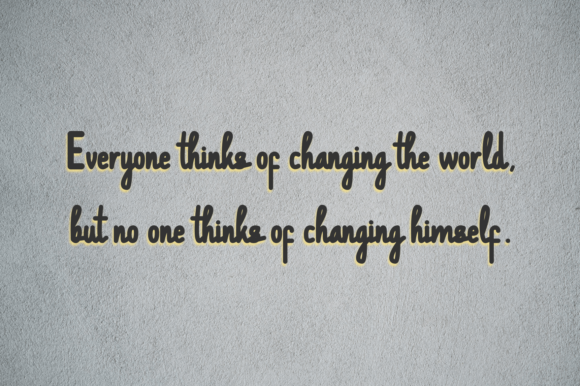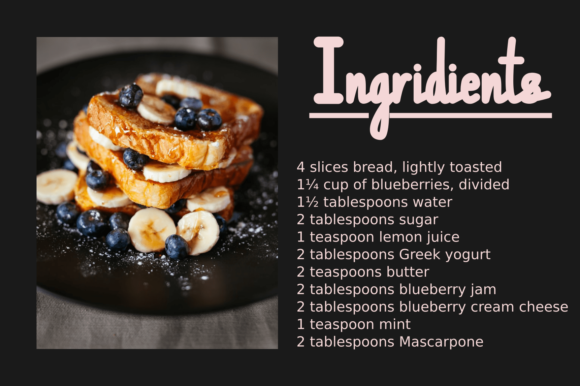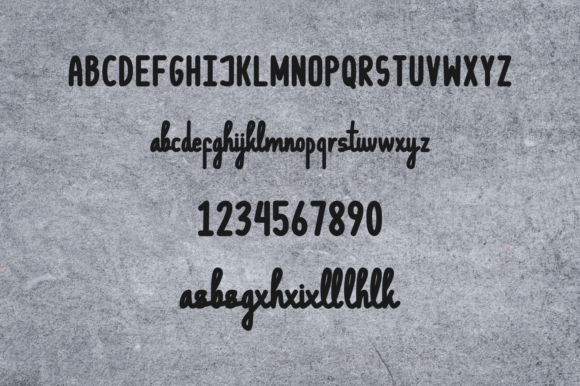
Introduction to Serena Font
As a designer, you know the thrill of seeing a creative project come together. The moment when all the elements align, and your vision takes shape. For many of us, that moment is often sparked by the perfect font – one that elevates the entire design and leaves a lasting impression. That’s where the Serena Font comes in – a stunning paint-brushed script font that exudes elegance, sophistication, and modern charm.
With its balanced and beautiful design, the Serena Font is a valuable resource for designers looking to add a touch of class to their projects. Whether you’re working on a logo, branding, invitation, or social media post, this font is sure to make a statement. And the best part? It’s available for a free download, complete with a transparent background for seamless integration into your design.
So, what sets the Serena Font apart from other design resources? Its high-quality design and versatility make it an ideal choice for a wide range of creative projects. From wedding designs to stationery, this font is sure to impress. Let’s dive deeper into the world of the Serena Font and explore its many uses and benefits.
Key Features of Serena Font
- High-quality design resource ideal for creative projects, including invitations, brochures, and flyers.
- Features a clean and elegant design, perfect for use in logos, headings, and body text.
Honest Review: Serena Font
I recently stumbled upon the Serena Font while searching for a high-quality, free download to enhance my creative project. As a designer, I was excited to explore this design resource and see how it would perform in my next design.
The Serena Font offers a beautiful, elegant script that can add a touch of sophistication to any design. I particularly liked the way the letters flow and connect, creating a seamless, handwritten feel. The font is perfect for creating titles, headings, or even body text, and it works well for a variety of design projects.
What works well: ✨ High-quality design, ✨ elegant script, ✨ perfect for creative projects, ✨ free download
However, I did notice a few limitations. ⚠️ The font is only available in a limited range of weights, which may not be suitable for all design projects. Additionally, some users may find the font a bit too ornate for certain designs.
Overall, I was impressed with the Serena Font, and I would definitely recommend it to fellow designers. Its elegant script and high-quality design make it a great addition to any design resource collection.
Serena Font
The Serena Font is a versatile design resource perfect for creating high-quality visual content. With a transparent background, this font is ideal for adding a touch of elegance to your creative project.
The Serena Font is perfect for creating invitations, business cards, and other marketing materials. It’s also great for adding a touch of sophistication to your blog or website.